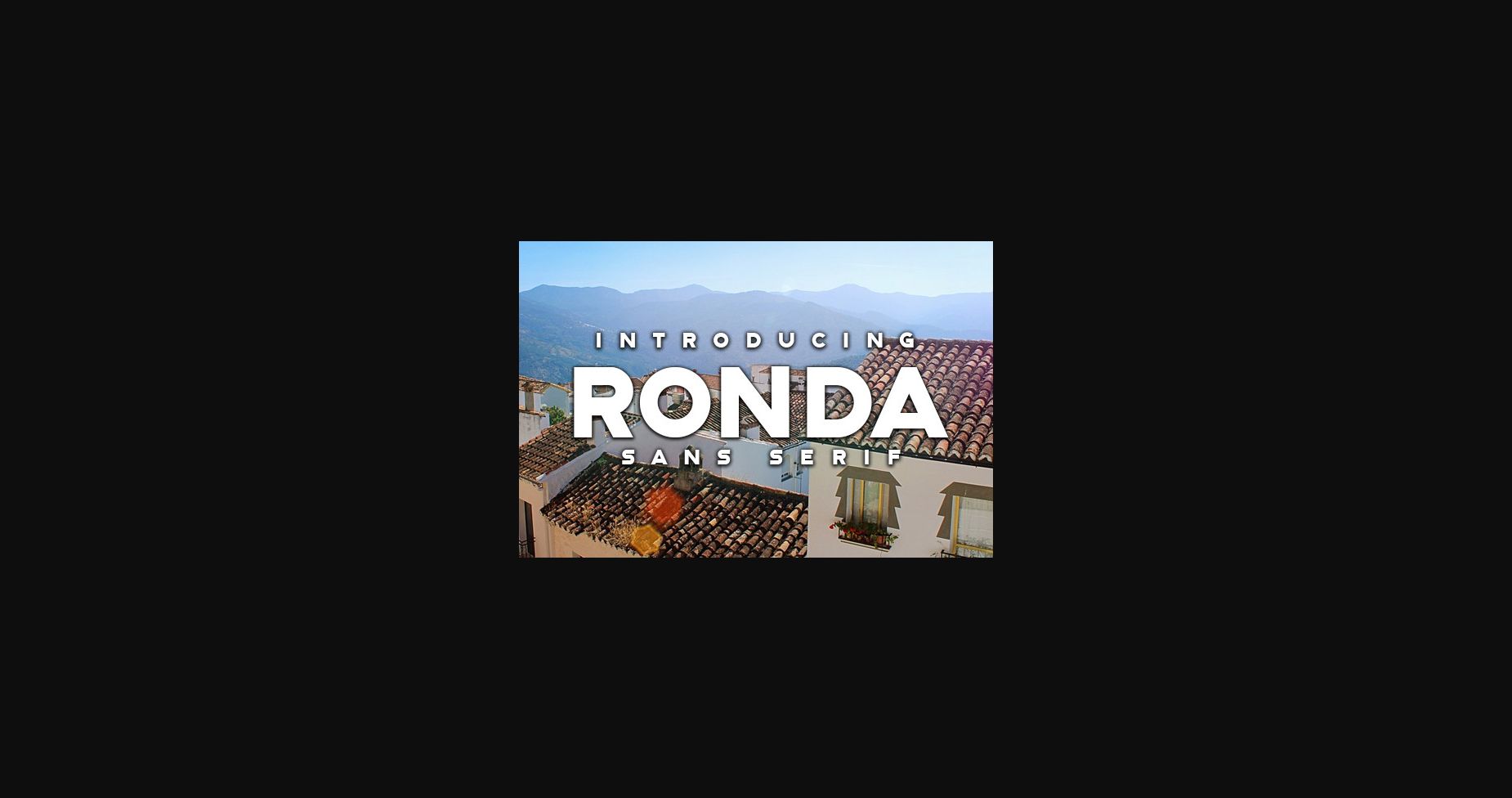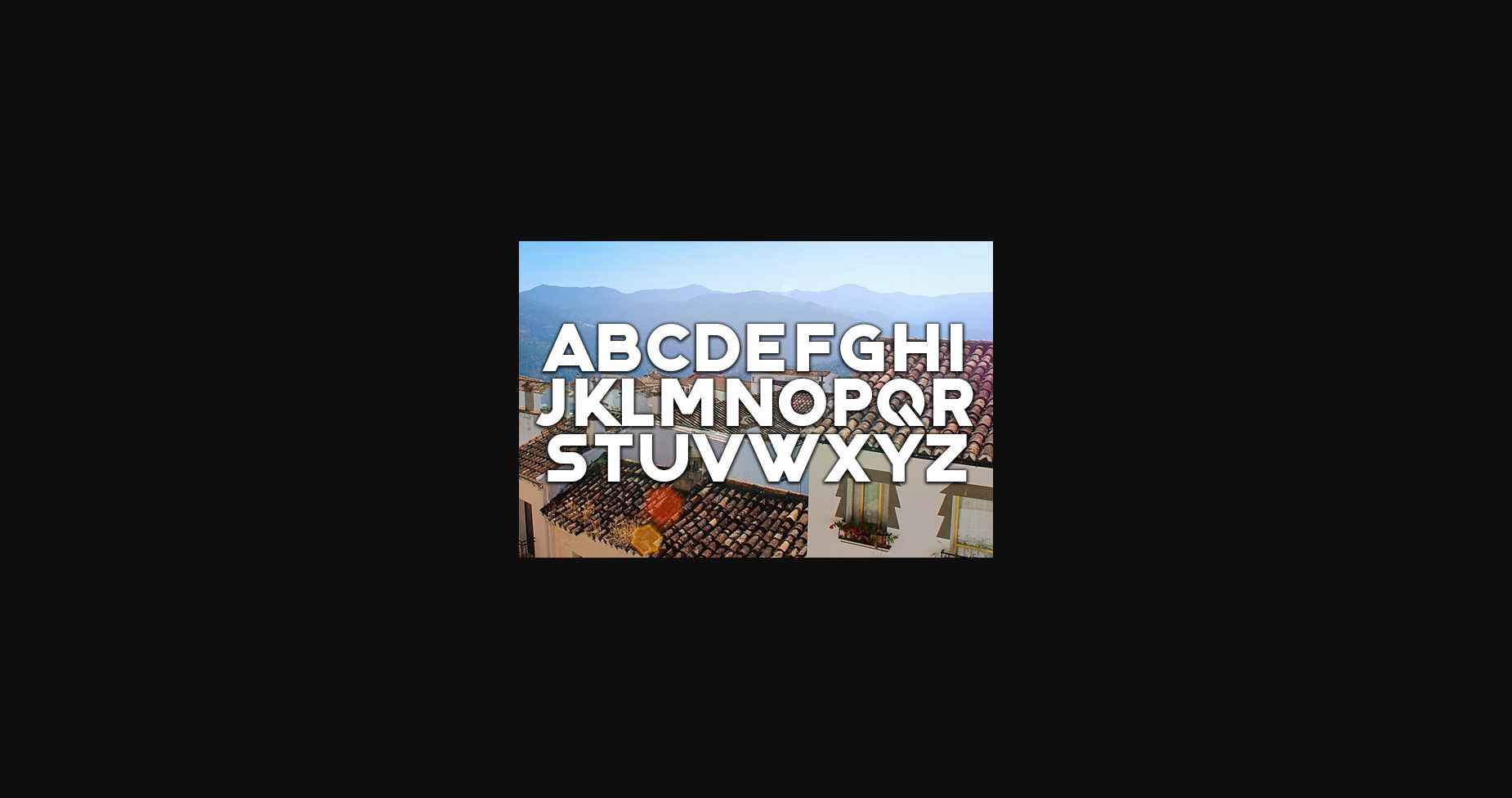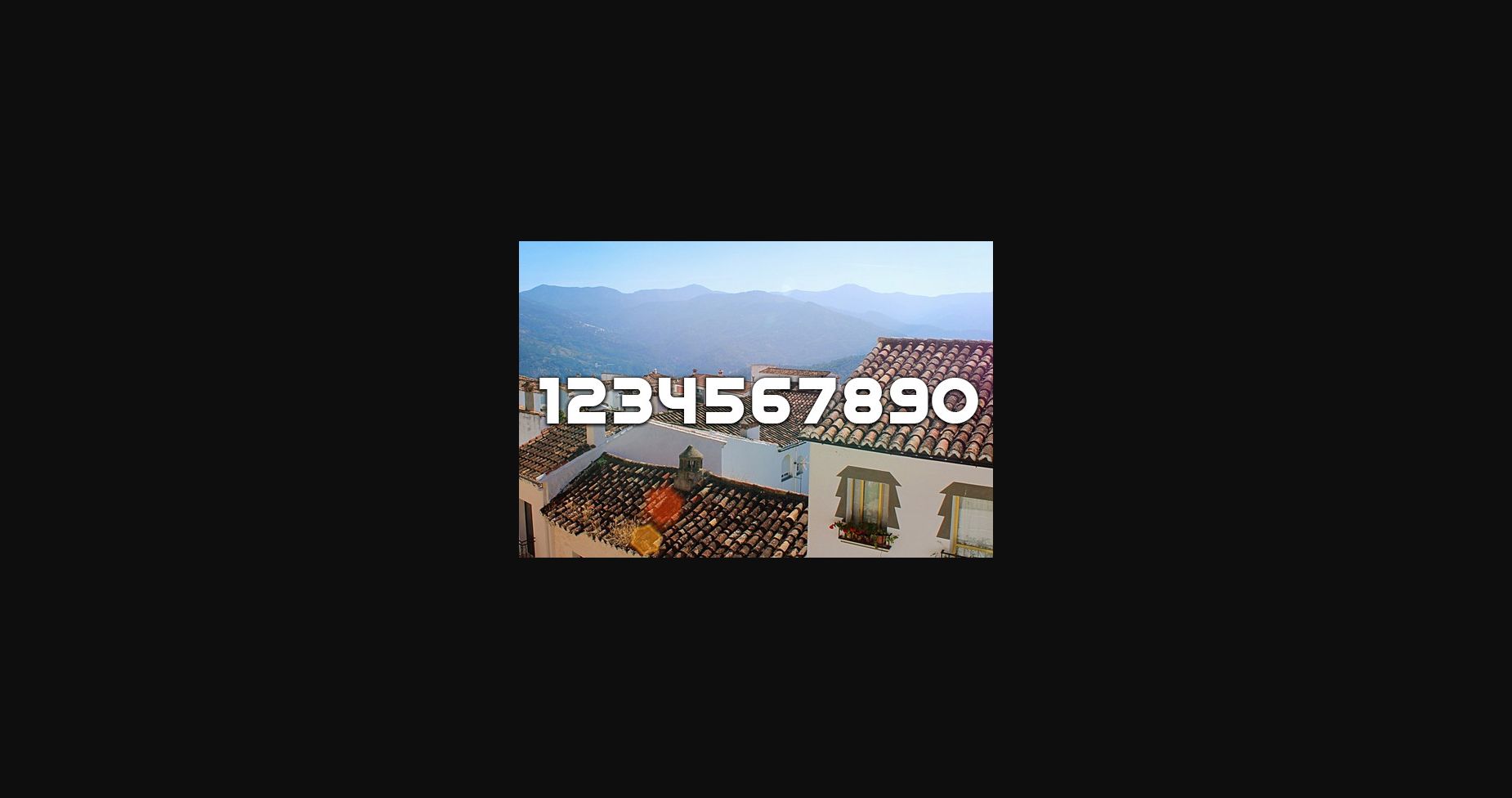
HomeSans Serif FontsRonda Font Sans Serif Fonts Ronda Font FacebookXPinterestWhatsApp 1 of 5 ... Ronda Font Poster 2... Ronda Font Poster 3... Ronda Font Poster 4... Ronda Font Poster 5... About Ronda Font Ronda is a bold sans serif font that will inspire your projects. Use this font on banners, posters, and t-shirts. DOWNLOAD NOW People also explored Flood Font Lovely Monoline Font Christmas Curls Font Christine Font Serdelek Font Pradock Font Type Ultimate Maryland Font Wiggly Finger Font 470 0 TagsRondaRonda Font Previous articleArcadian FontNext articleLune Font LEAVE A REPLY Cancel reply Comment: Please enter your comment! Name:* Please enter your name here Email:* You have entered an incorrect email address! Please enter your email address here Website: Save my name, email, and website in this browser for the next time I comment. Personal Use Free Valentines Day Personal Use Free Read more about this font Yumail Personal Use Free Read more about this font Bukan Personal Use Free Read more about this font Zroest Personal Use Free Read more about this font BLOG Modern Sans-Serif Fonts That Brands Love in 2025 In 2025, modern sans-serif fonts remain a top choice for brands looking to project clarity, professionalism, and... Best Fonts for T-Shirt Design – Top 2025 Picks Top 10 Handwritten Fonts That Elevate Your Designs How to Install and Use Fonts on Windows, macOS, and Web Projects